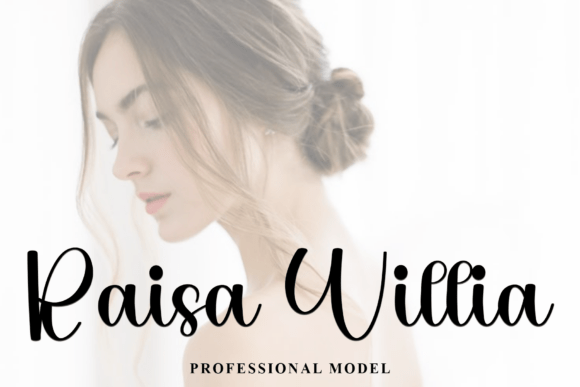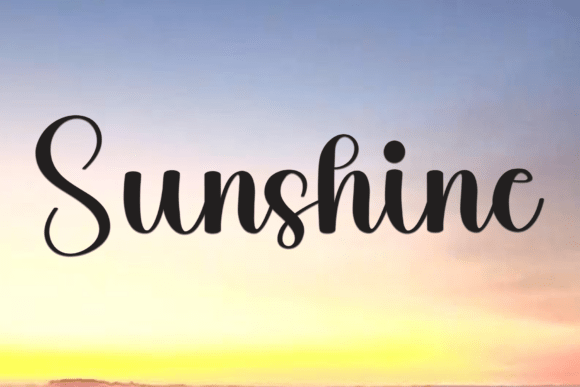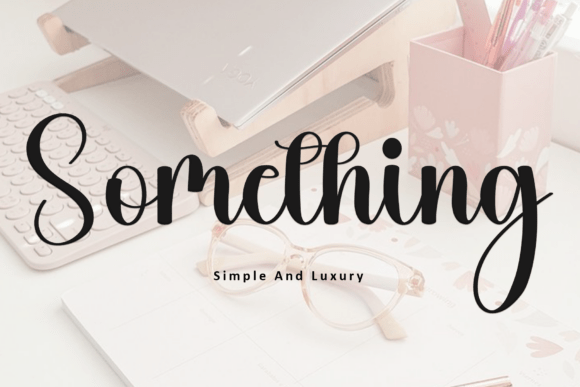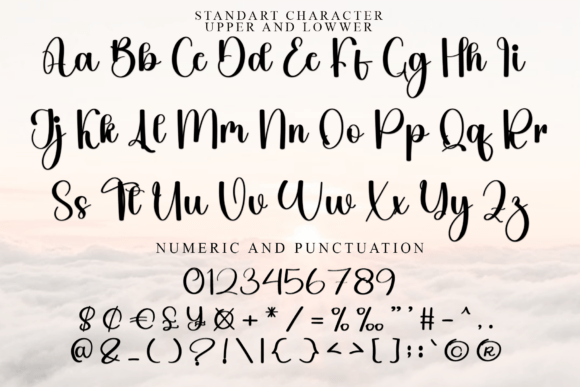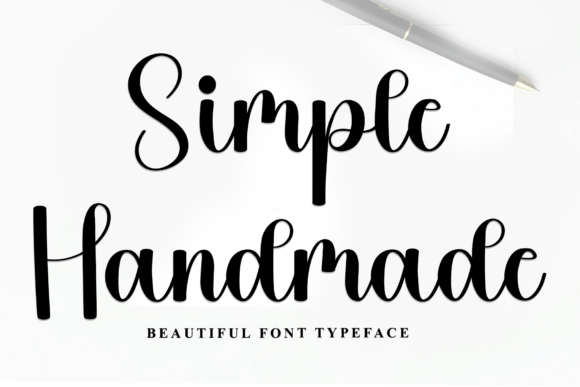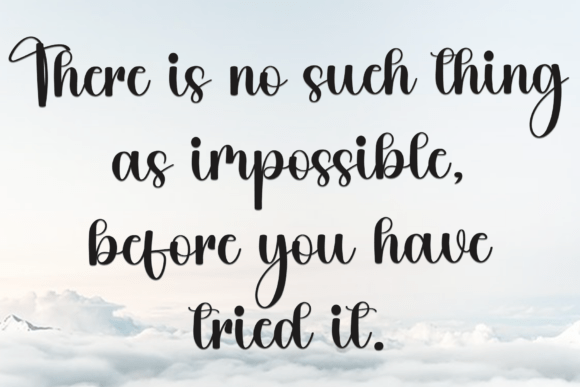
Introducing Breakday Font: Elevate Your Designs with a Unique and Eye-Catching Style
In the world of typography, a font can make or break a design project. It’s the foundation upon which creativity is built, and the right choice can elevate a design from ordinary to extraordinary. If you’re a designer, crafter, or creative looking for a font that stands out from the crowd, look no further than Breakday Font. This beautiful and eye-catching font is designed with a soft, unique touch that will add a special character to your projects.
The Distinctive Strokes of Breakday Font
Breakday Font boasts distinctive strokes that give it a special character, making it meaningful and versatile for future use. Its unique design ensures that your projects will stand out from the crowd, and its natural font style makes it perfect for a wide range of products. Whether you’re working on a design project, craft, or other creative work, Breakday Font is the ideal choice.
A World of Creative Possibilities
Breakday Font is perfect for a variety of design projects, including:
- Logos and branding: Create a lasting impression with a unique and eye-catching logo that sets your brand apart.
- Posters and flyers: Grab attention with a bold and beautiful font that’s sure to turn heads.
- Social media graphics: Elevate your social media presence with stunning graphics that showcase your creativity.
- Crafts and DIY projects: Add a personal touch to your handmade crafts and DIY projects with a font that’s both unique and versatile.
- Print design: Create stunning print materials, such as brochures, business cards, and more.
- Digital design: Use Breakday Font in your digital projects, including websites, apps, and more.
- Crafting and DIY: Add a personal touch to your handmade crafts and DIY projects, such as signs, banners, and more.
Why Choose Breakday Font?
So why choose Breakday Font for your next design project? Here are just a few reasons:
- Unique and eye-catching design: Breakday Font is designed to stand out from the crowd, making it perfect for designers and crafters who want to create something special.
- Versatile and compatible: Breakday Font is compatible with a wide range of applications, making it perfect for use across different artistic and creative fields.
- Natural font style: Breakday Font’s natural font style makes it perfect for a wide range of products, from print design to digital design and crafting.
- Various characters: Breakday Font comes with a range of characters, making it perfect for use in a variety of design projects.